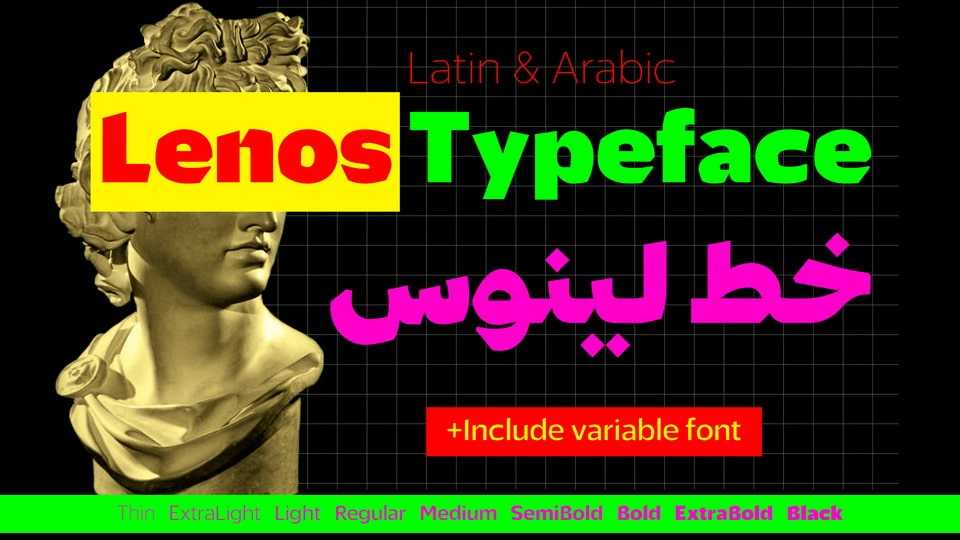
Download Lenos font, a modern version of the old Arabic script “Naskh”. A robust modern typeface that combines the sans and the “Naskh” into one strong type family. Lenos can be used for both digital and offline applications.
Designer: Baianat Type Design